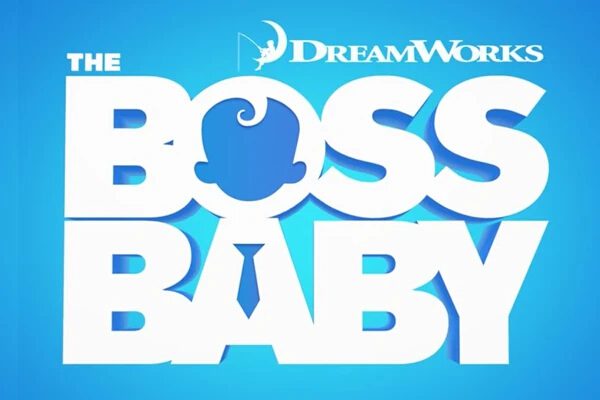
The Boss Baby font that is used in the official movie poster and logo is a typeface of the same name called Boss Baby. This font was produced especially for this Hollywood movie.
This Boss Baby font has been created with the same sans-serif style as the original movie poster. It has all the same rounded curves, and fat stroke lines that make it an exact replica of the one used in the movie of the same name. The font comes in TTF file fomat which means that it will be fully compatible and able to be installed on all PC and Mac computers. An added bonus of this font is that it also includes the same design flourishes of the babies face on the "O" character, as well as the suit tie on the "A" character. Iin this way, you can create your very own logo or image which will replicate the original style used in the Boss Baby movie poster title.
Nothing says a computer-animated comedy better than Boss Baby, a 2017 movie produced by DreamWorks Animation. The film stars the voices of many well-known celebrities such as Alec Baldwin (the main character in the movie), Jimmy Kimmel, Lisa Kudrow, Tobey Maguire, and others. The film has had its fair share of success as it has grossed more than 528 million dollars worldwide.